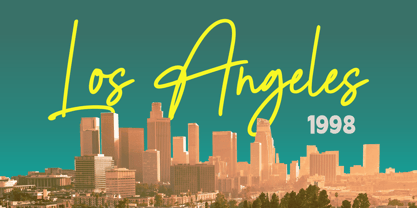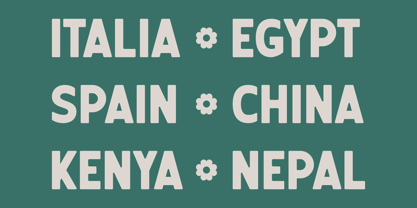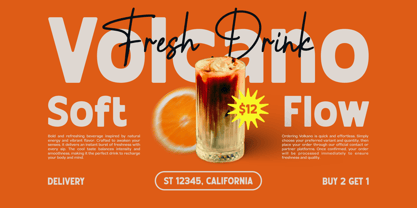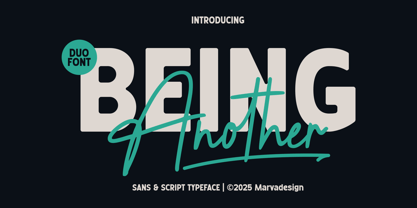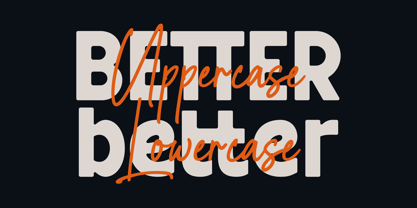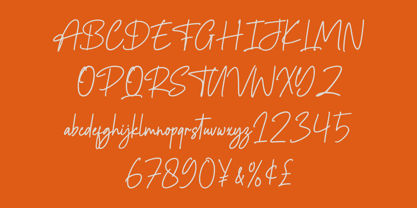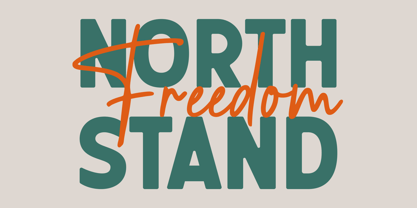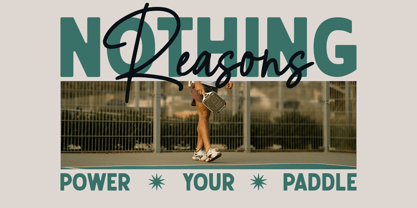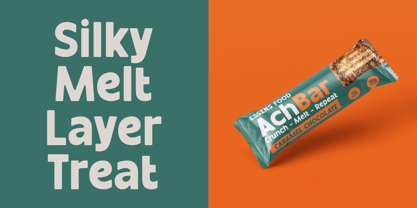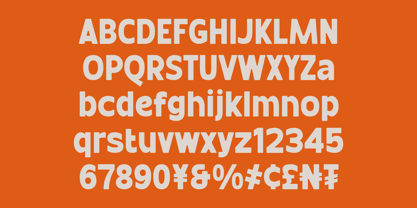
Being Another
by Marvadesign
The Being Another Font Family was designed by Febrie Setiawan and published by Marvadesign. Being Another contains 2 styles and family package options. More about this family
Being Another is a modern duo typeface that combines a bold sans serif with an expressive handwritten script, designed to work harmoniously as a single visual system. The sans serif style features strong, rounded letterforms with a confident weight and clean geometry, making it highly legible and impactful for headlines, posters, branding, and display purposes. Its sturdy structure gives a contemporary and professional feel, while subtle curves soften the overall appearance, allowing it to remain friendly and versatile across both digital and print media. The script style of Being Another brings a contrasting yet complementary personality. It has a fluid, handwritten character with dynamic strokes, natural connections, and an energetic rhythm that feels personal and expressive. The script is ideal for accents, emphasis words, signatures, or layered typography, adding emotion and movement when paired with the sans serif. Together, these two styles create a strong visual balance between clarity and creativity, making Being Another an excellent choice for branding projects, lifestyle posters, sports and fashion designs, social media graphics, and modern editorial layouts where bold statements meet expressive storytelling.
Designers: Febrie Setiawan
Foundry: Marvadesign